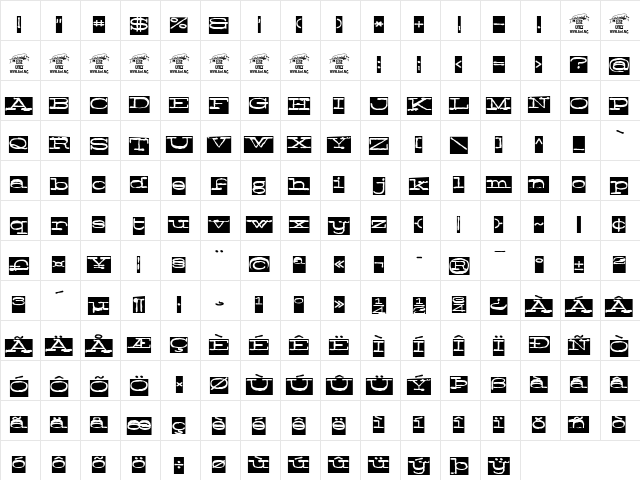
Normale Black Personal Use Regular Font Preview
Normale Black Personal Use Regular
Normale Black Personal Use Regular Font Details
Design Context for Normale Black Personal Use Typeface
Normale Black Personal Use is a composed and adaptable typeface that performs quietly and consistently across a wide range of design contexts.